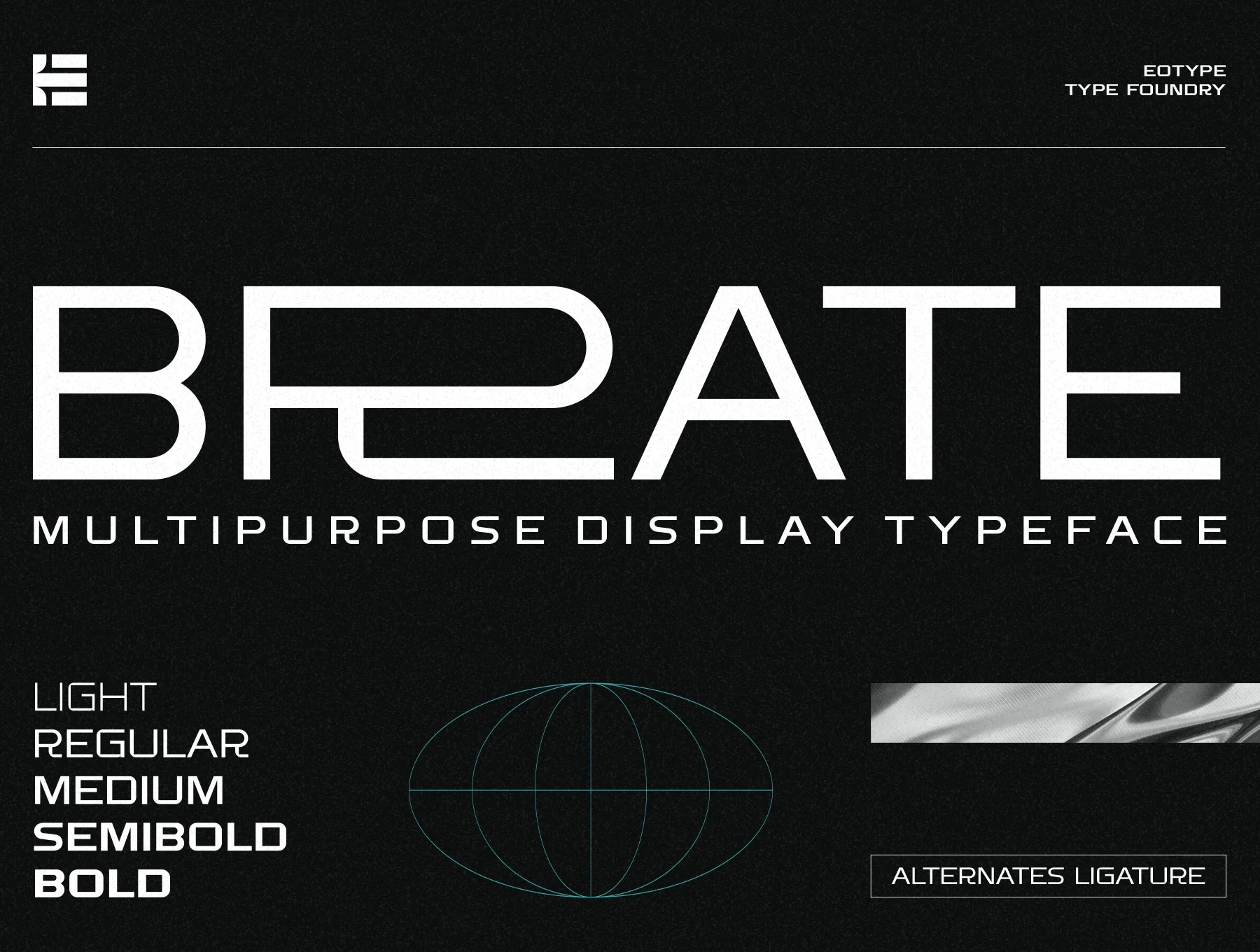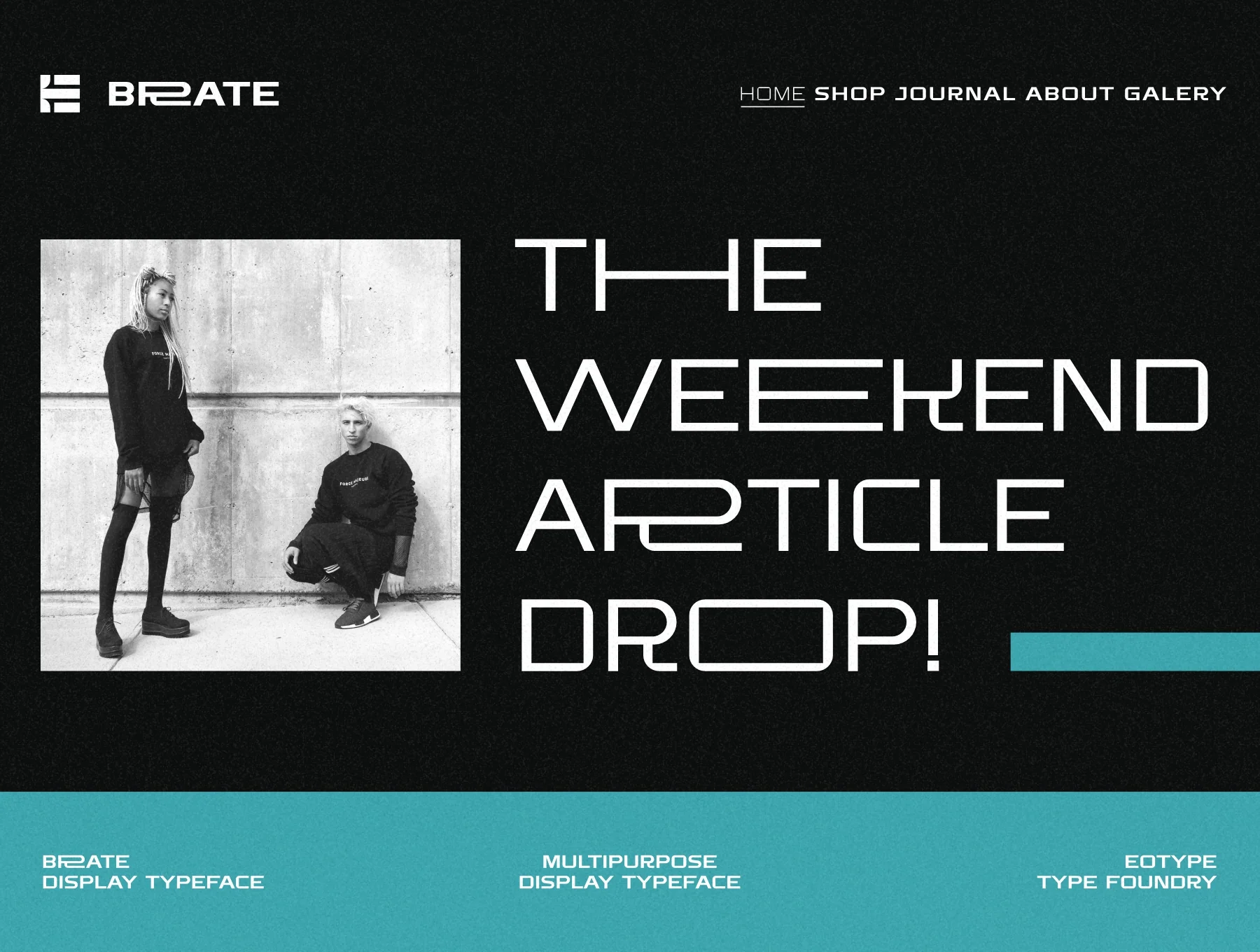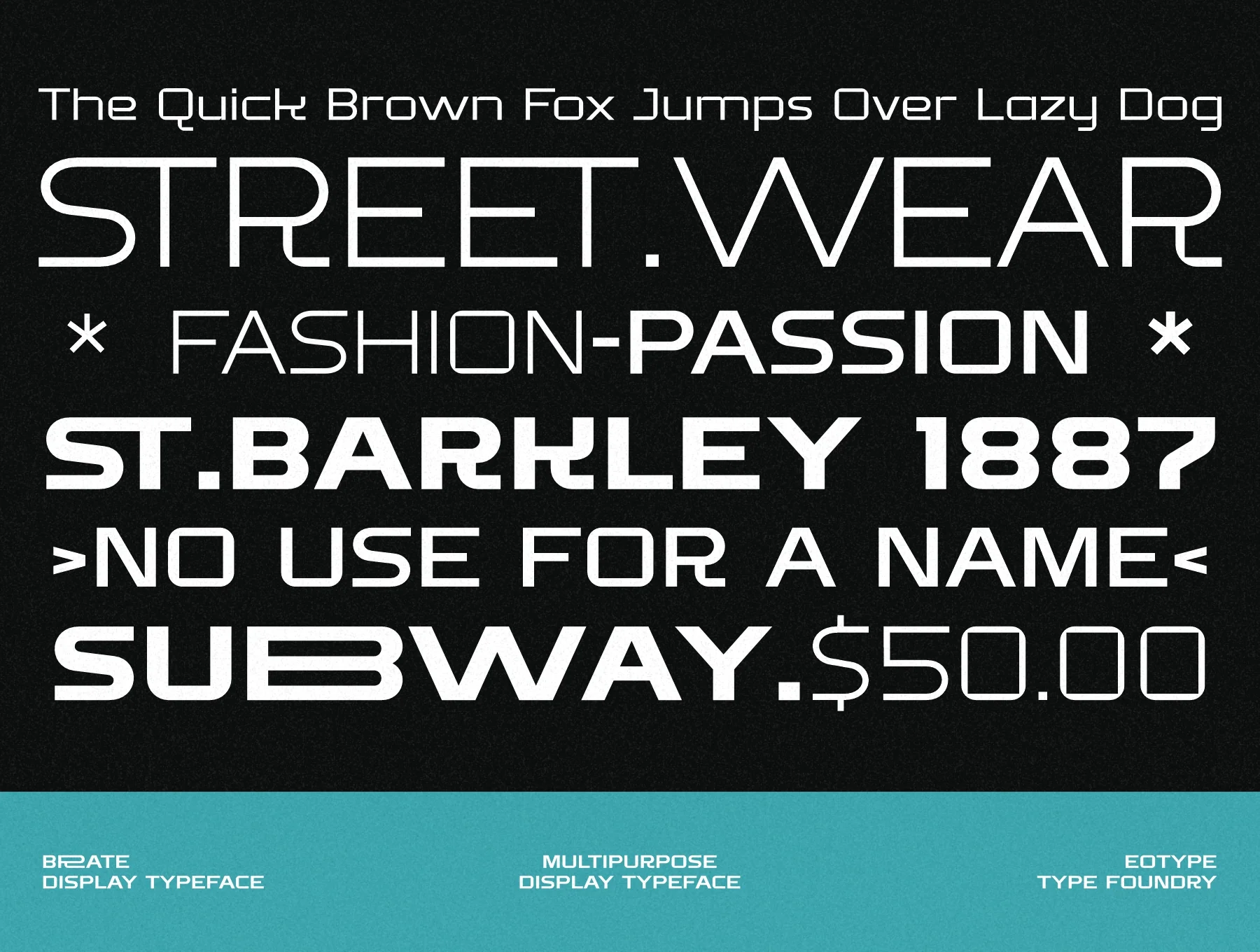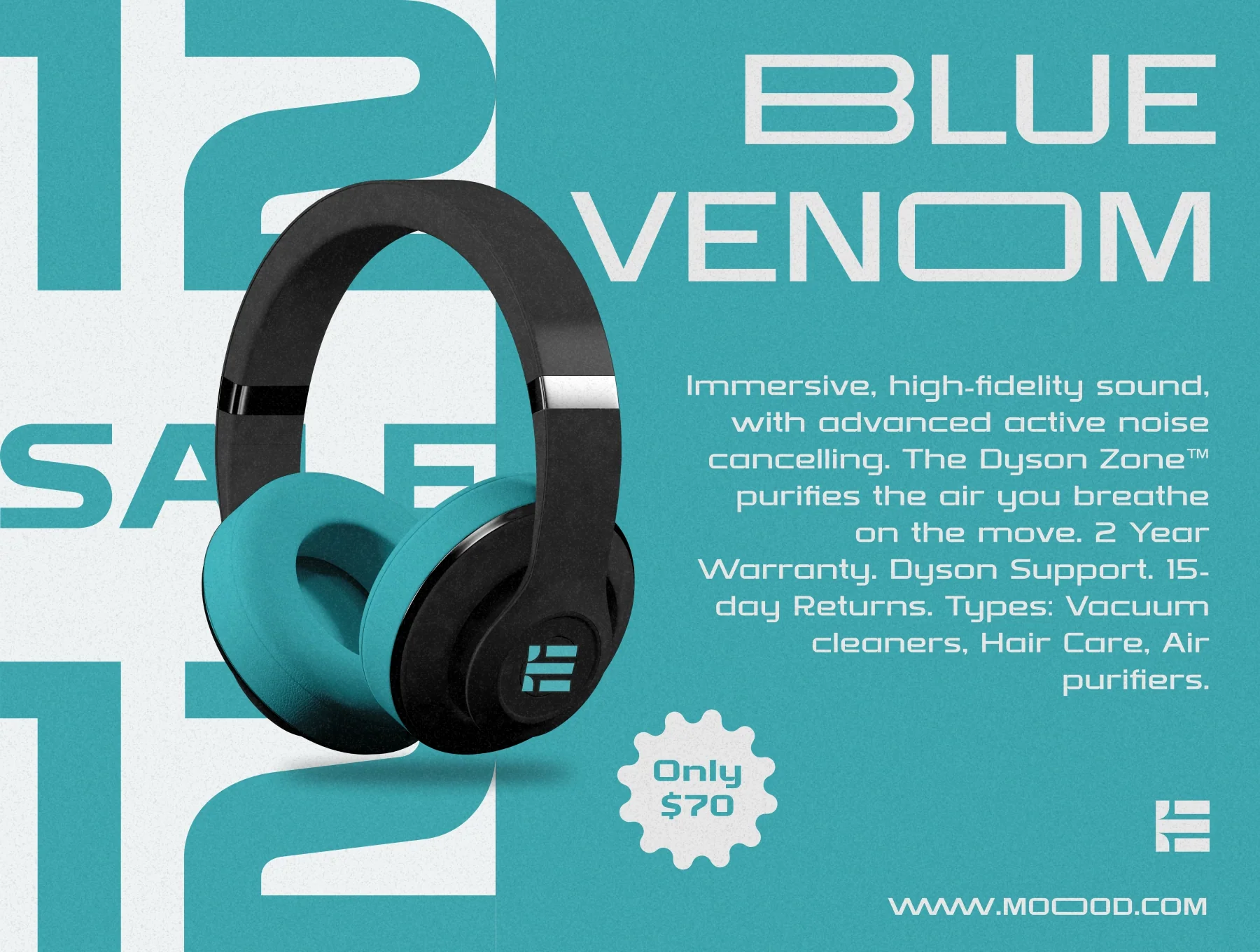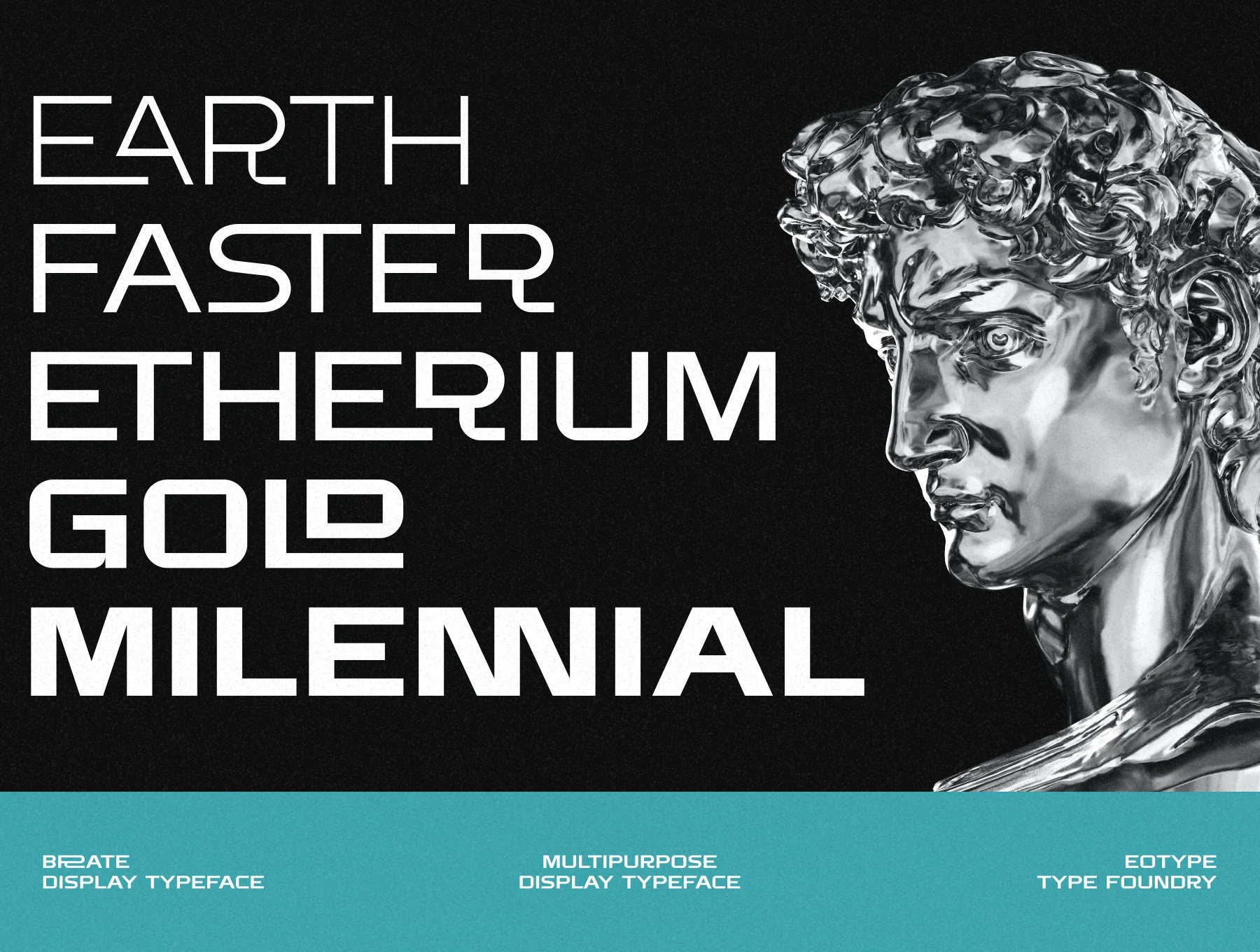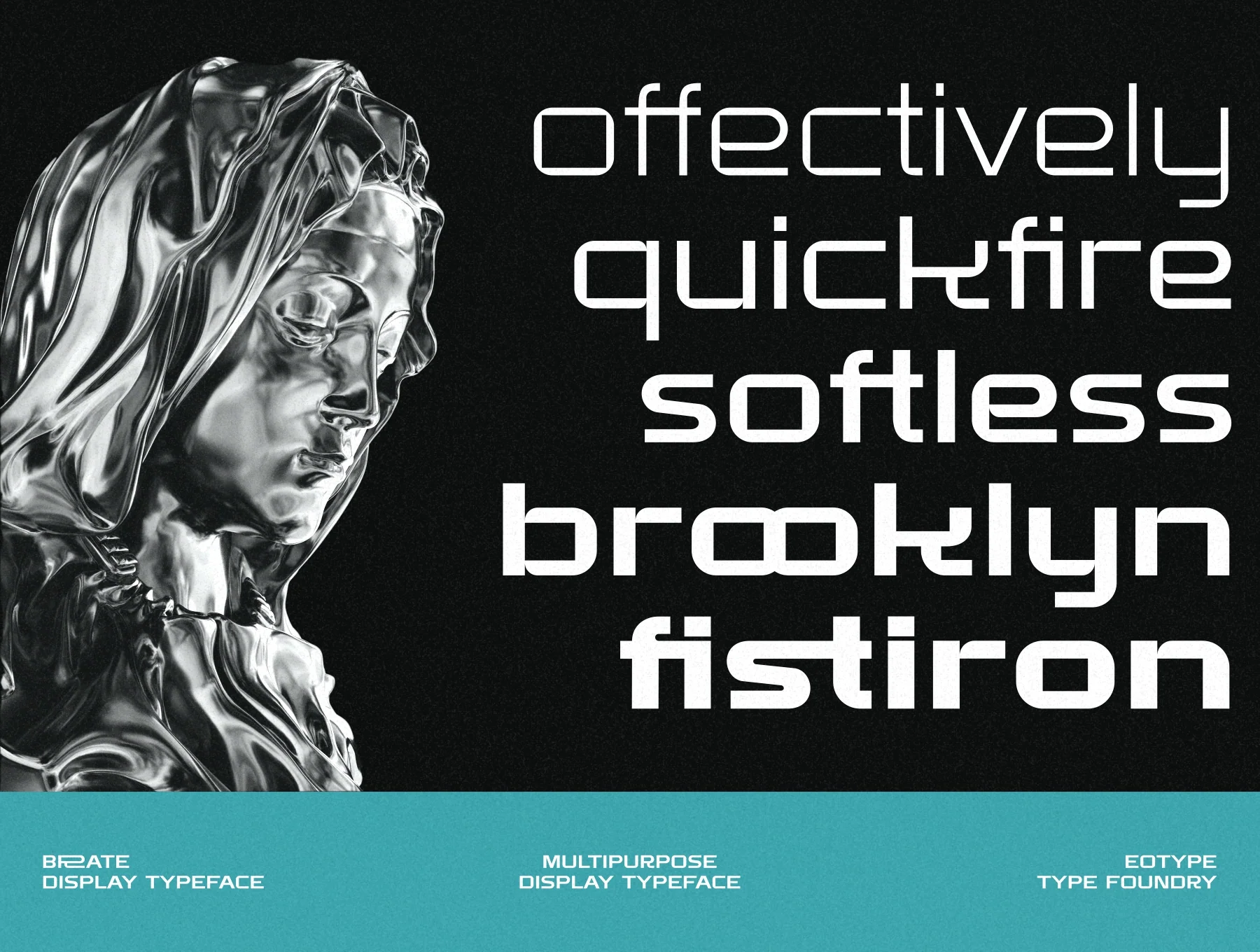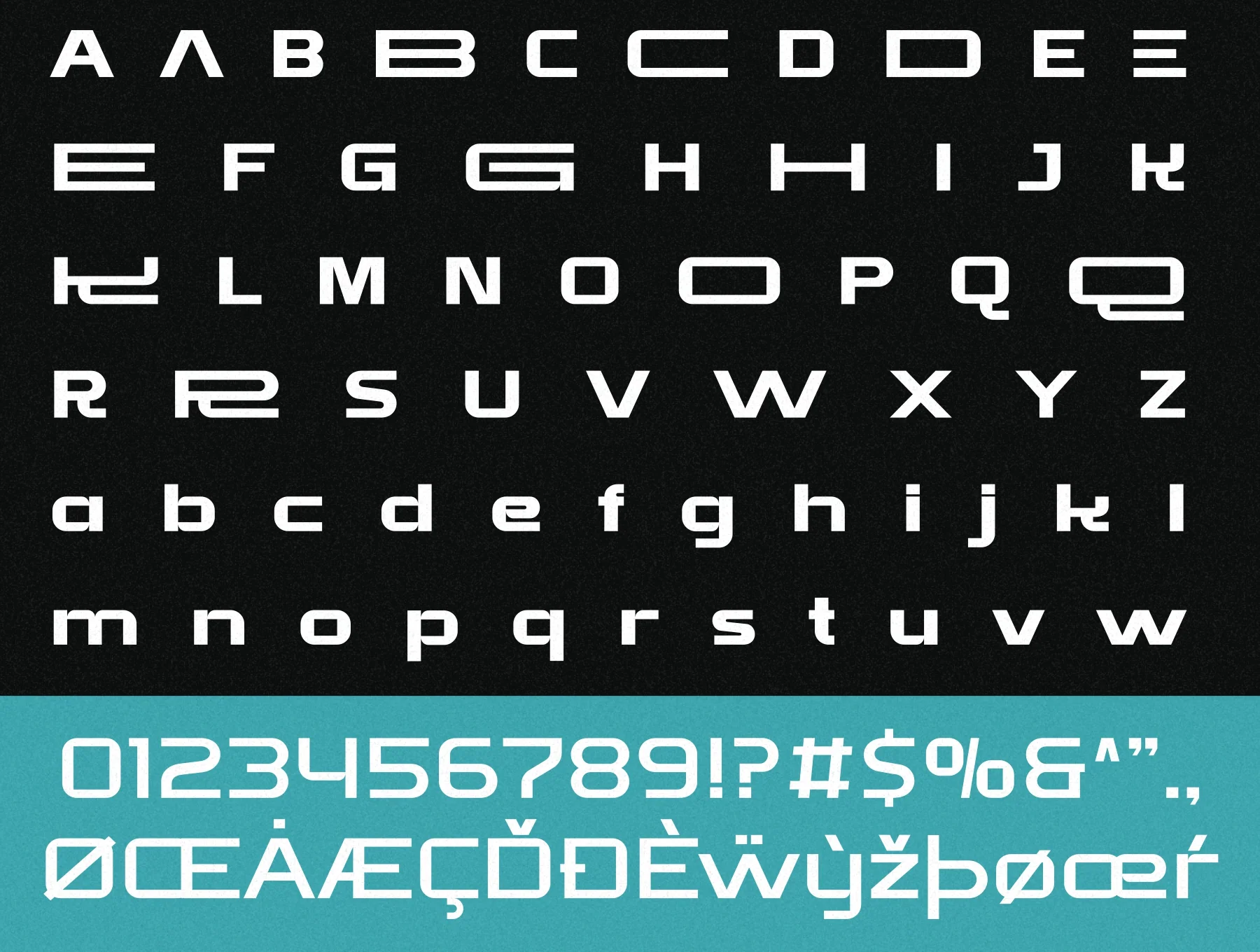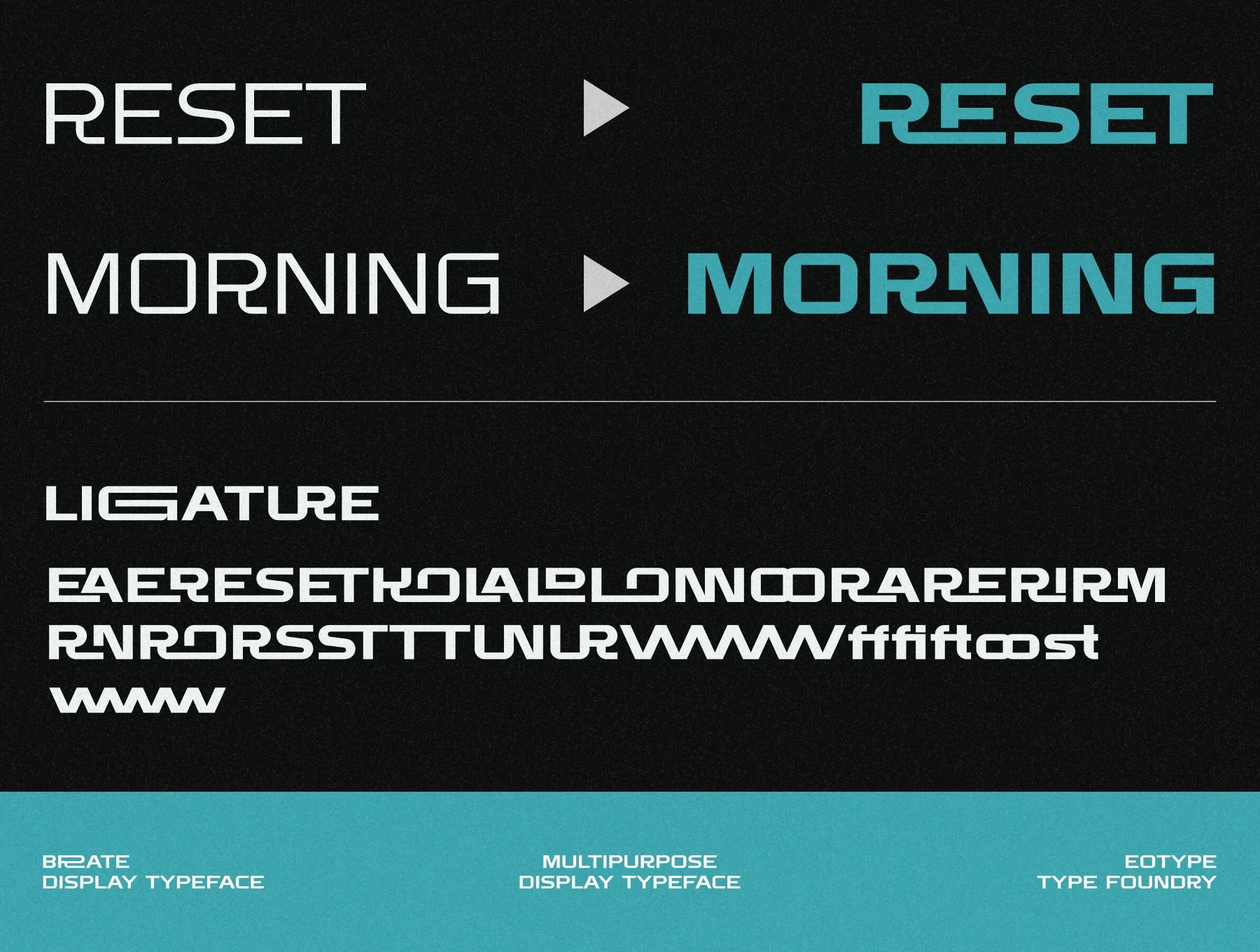
Brate - Family Display Typeface
Brate contemporary grotesque font
Regular glyph set
Five style options
Numbers and punctuation marks
Decorative alternates and ligatures
Brate is a contemporary grotesque typeface available in 5 styles. Its glyphs feature bold geometric forms with subtly softened rounded edges. Ideal for logos, branding, posters, and other creative uses, Brate also includes alternates and ligatures.